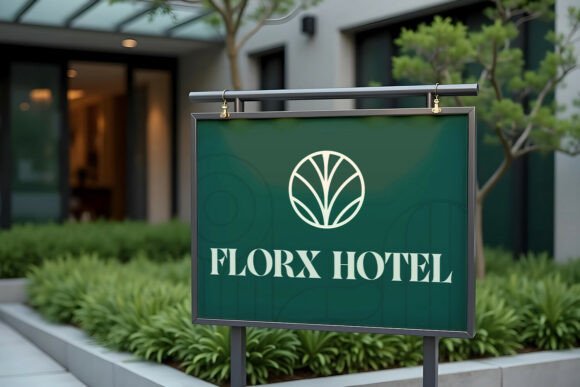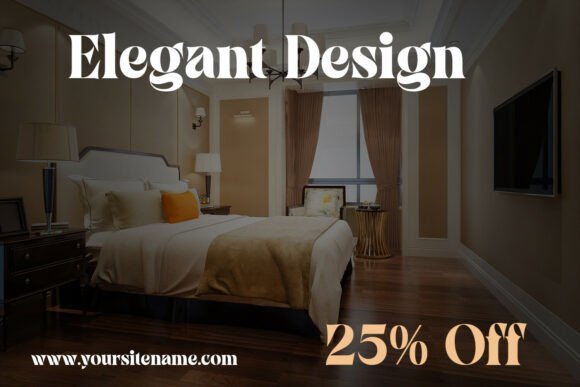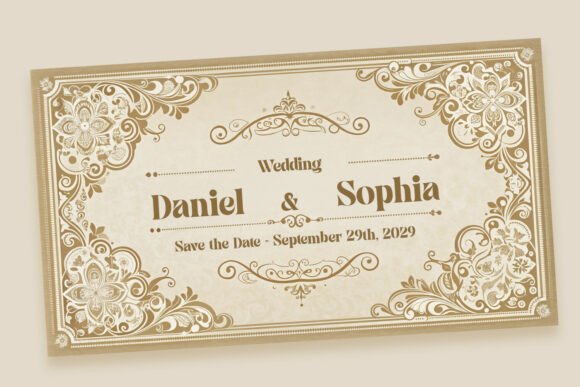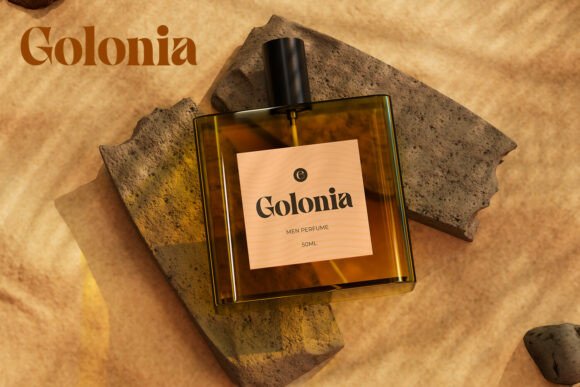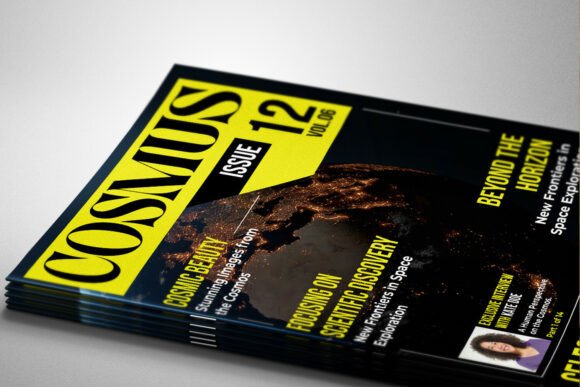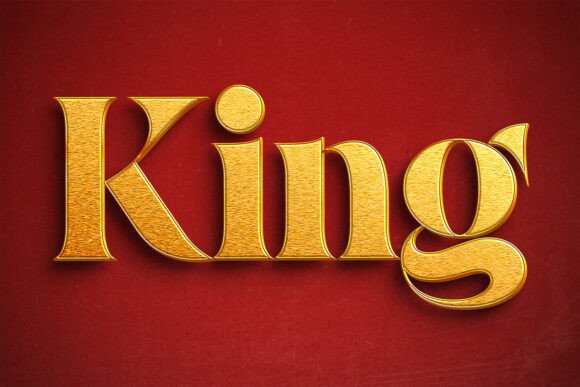
Introduction to Roxen Font
Have you ever stared at a blank canvas, waiting for inspiration to strike? The blank page, the empty screen, it’s a daunting sight for many creatives. But what if we told you that the perfect spark can come in the form of a single font? For designers seeking to elevate their creative projects, the Roxen Font is that spark.
This premium, luxury display font is the ultimate design resource for high-end fashion branding, luxury apparel, and premium cosmetics packaging. With its elegant yet strong character shapes, Roxen Font guarantees a professional and best-in-class aesthetic, making it a valuable asset for designers looking to make a bold statement. Whether you’re working on a modern magazine cover, cinematic movie titles, or stunning wedding invitations, Roxen Font is the perfect choice for designers seeking a high-quality design solution.
Key Features of Roxen Font
- High-quality design resource ideal for creative projects requiring a modern and sleek aesthetic.
- Measures 1000 pixels in height, making it suitable for use as a title or heading font.
- Part of a larger collection of fonts, offering designers a range of options for their creative project.
Honest Review: Roxen Font
As a designer, I’m always on the lookout for high-quality design resources that can elevate my creative projects. Recently, I stumbled upon the Roxen Font, and I must say, it’s been a game-changer for my design work.
- ✨ The Roxen Font offers a transparent background, making it incredibly versatile for use in various design applications.
- ✨ The font is highly customizable, allowing me to adjust the size, color, and style to fit my design needs.
- ⚠️ The font may not be suitable for use in all design applications, particularly those requiring complex typography.
- ⚠️ Some users may find the font’s simplicity a bit too minimalist, depending on their design style.
Overall, I’m thoroughly impressed with the Roxen Font. Its high quality and versatility make it an excellent addition to my design arsenal. Whether I’m working on a simple logo or a complex creative project, the Roxen Font has proven to be a reliable and effective choice.
The Roxen Font is a versatile design resource suitable for various creative projects, such as graphic design, digital art, and web design. Its high-quality design makes it an excellent choice for presentations, posters, and brochures.
Alternatives to Roxen Font
Alegreya Sans is a high-quality sans-serif font ideal for creative projects that require a clean and modern look. It features a transparent background, making it perfect for use on various design resources. This font is free to download and can be used for personal or commercial projects. When to use: Alegreya Sans is suitable for projects that require a sleek and sophisticated design, such as brochures, magazines, or websites.
Compared to Roxen Font, Alegreya Sans has a more modern and minimalist design, making it a great alternative for designers who want a clean and elegant look.
Q: Does the Roxen Font have a transparent background?
No, the Roxen Font does not have a transparent background. However, it’s a high-quality font that can be easily combined with transparent backgrounds or other design elements to create a unique visual effect.